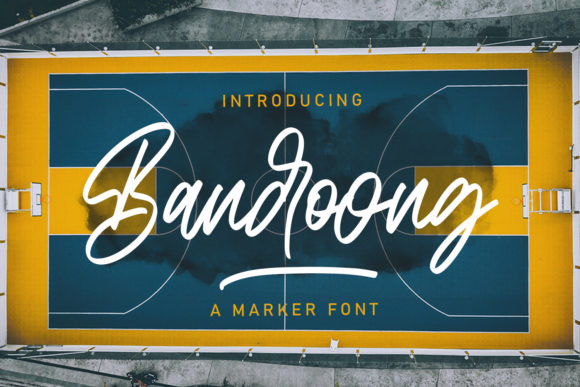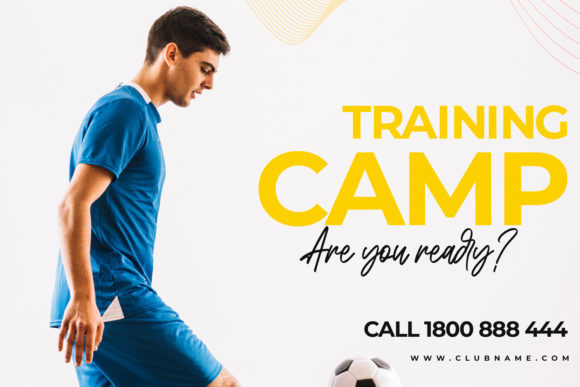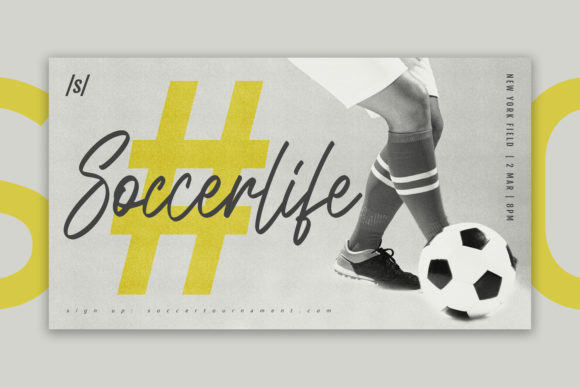
Bandoong Font
Bandoong is a cute and modern handwritten font with an incredibly friendly feel. It will elevate a wide range of design projects to the highest level, be it branding, headings, wedding designs, invitations, signatures, logos, labels, and much more!